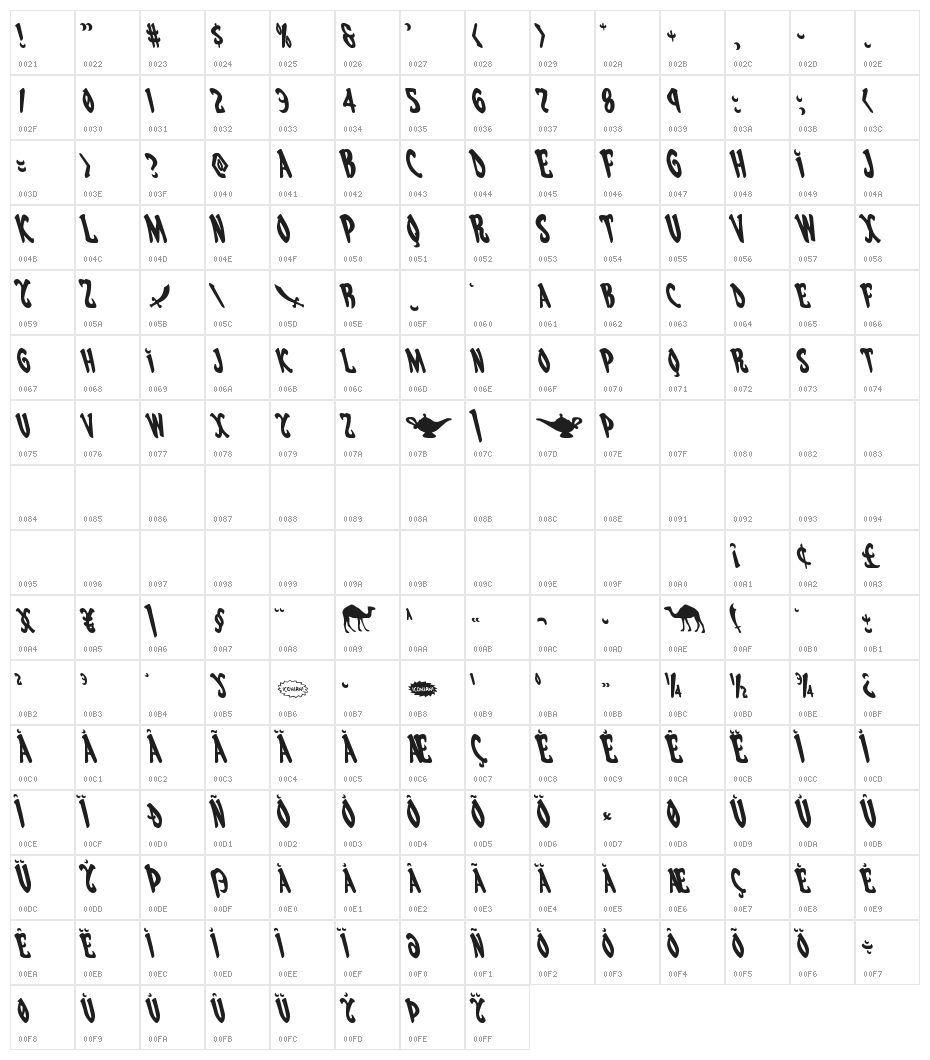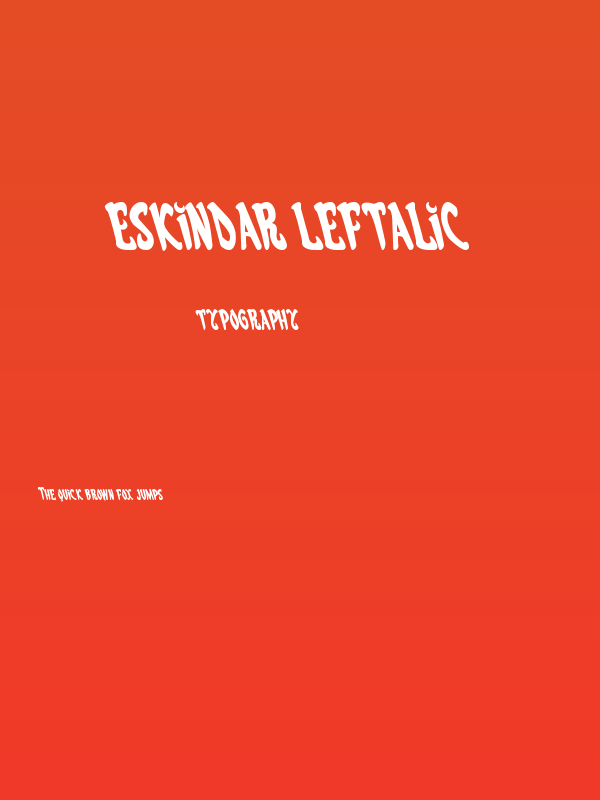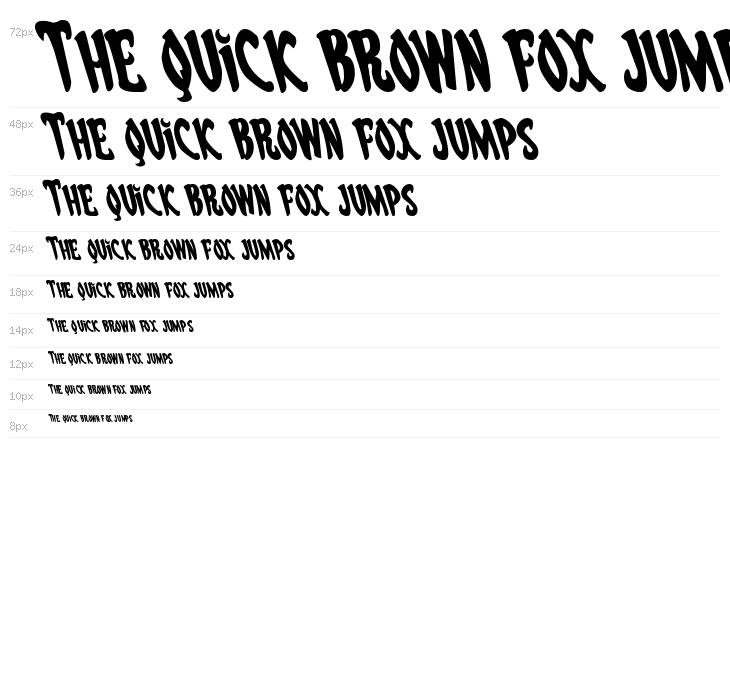
Eskindar Leftalic Font
Eskindar Leftalic Description
This font features a bold and dynamic style with a distinct slant, giving it a sense of movement and energy. The characters are thick and robust, with a playful and slightly whimsical appearance. The uppercase and lowercase letters maintain a consistent style, with exaggerated curves and unique flourishes that add to its decorative nature. The numbers and special characters follow the same design principles, ensuring a cohesive look across all elements. This font is ideal for projects that require a bold statement and a touch of creativity.